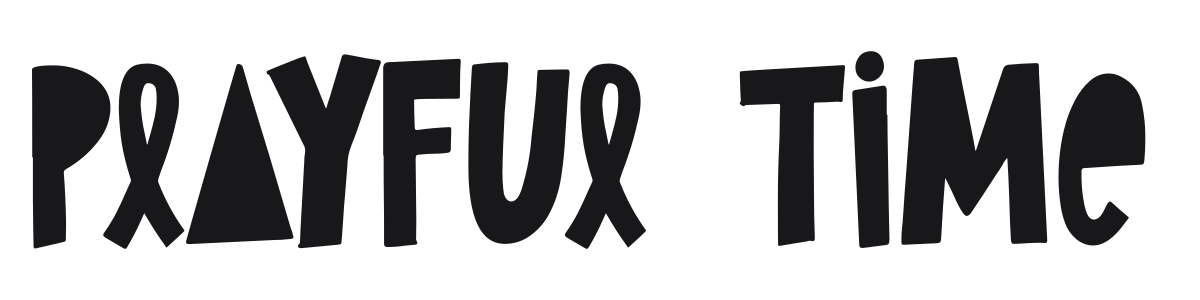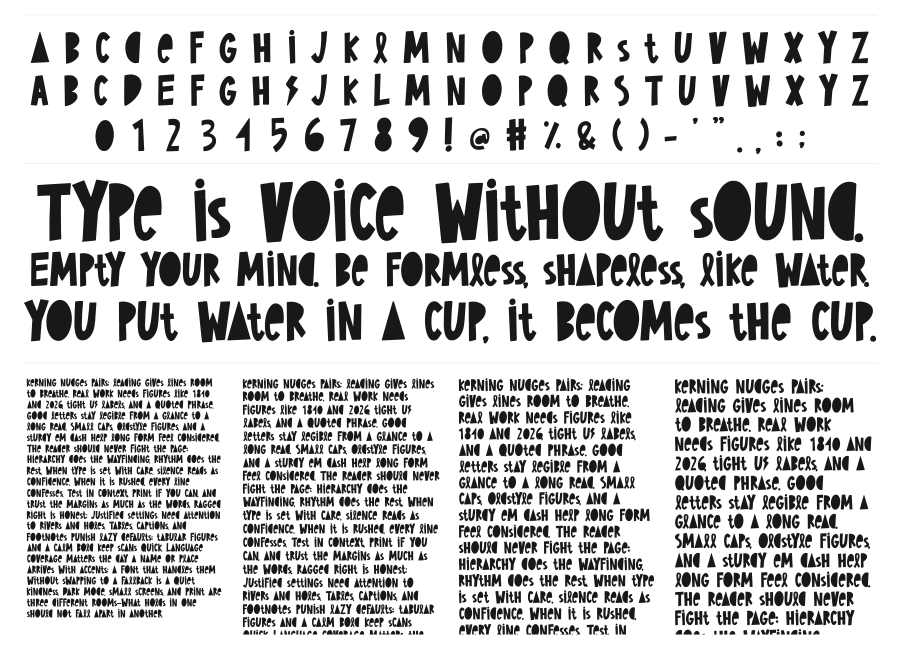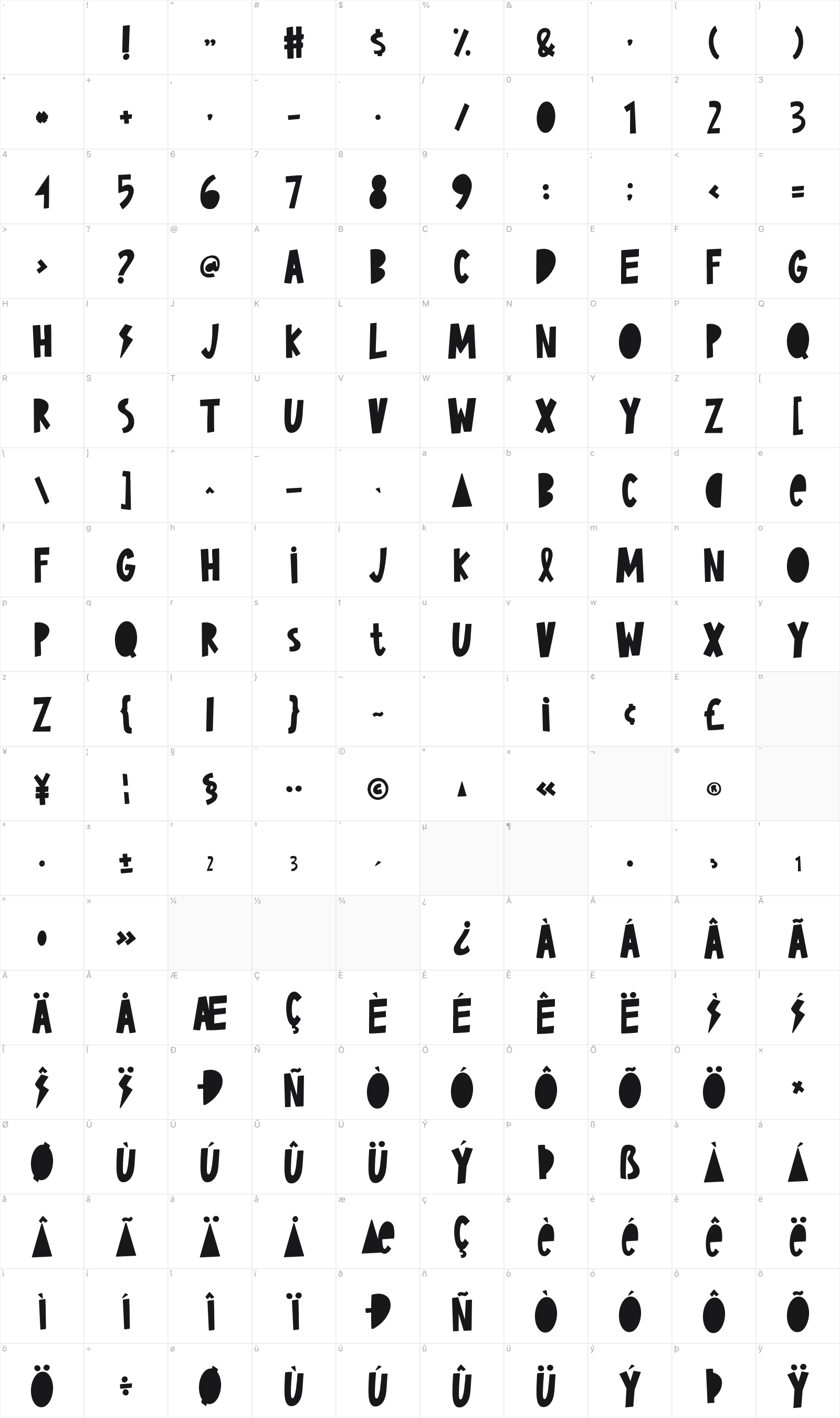
Playful Time
Playful Time is a bold, comic-style display font built on intentionally irregular shapes and variable letter proportions. Each character tilts and stretches differently, giving the font a handmade, spontaneous energy that reads as fun rather than sloppy. It suits children's content, casual branding, and anything that needs to feel lively and approachable.